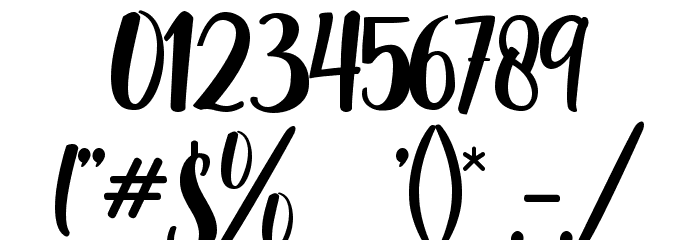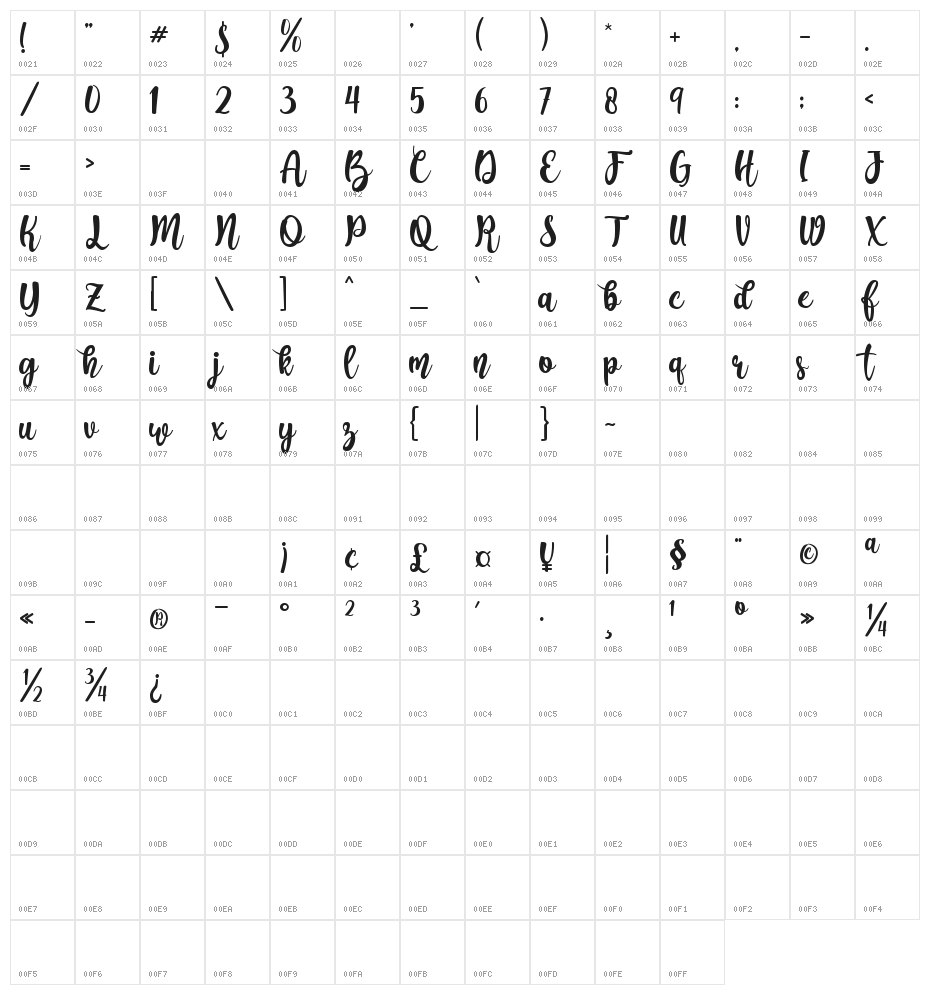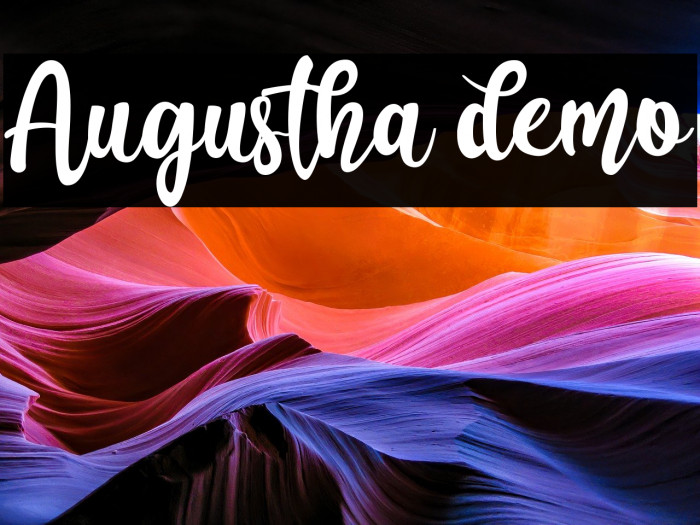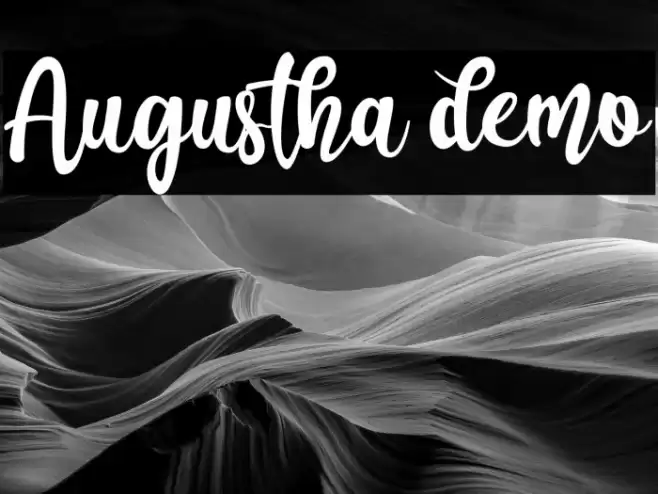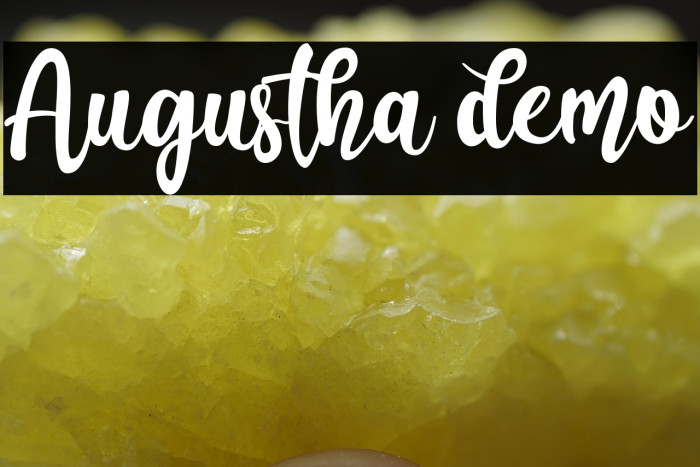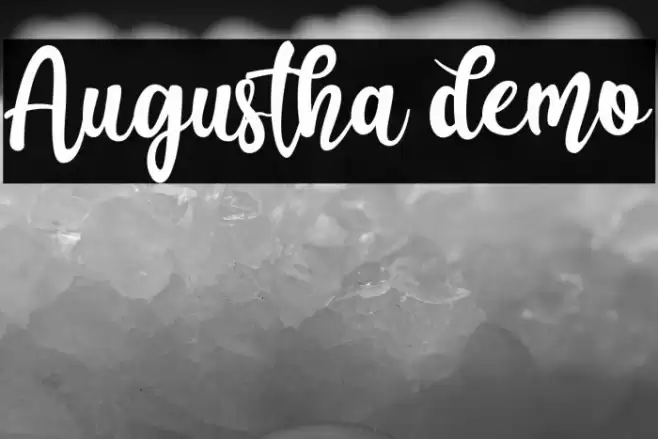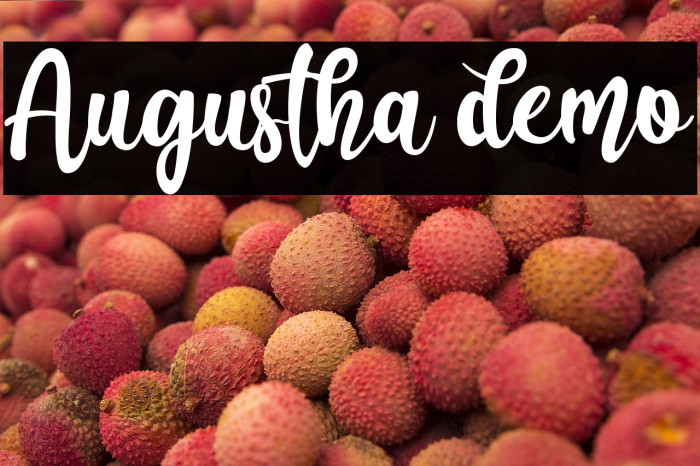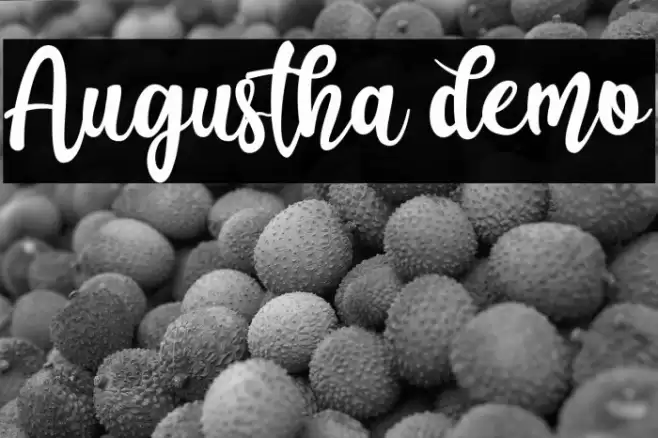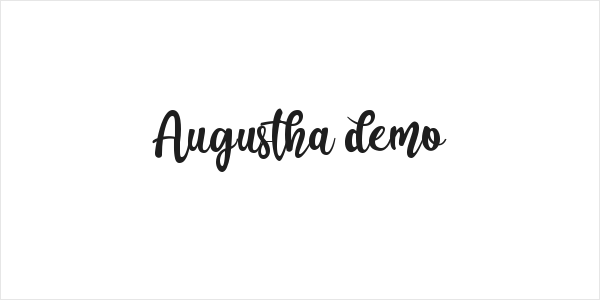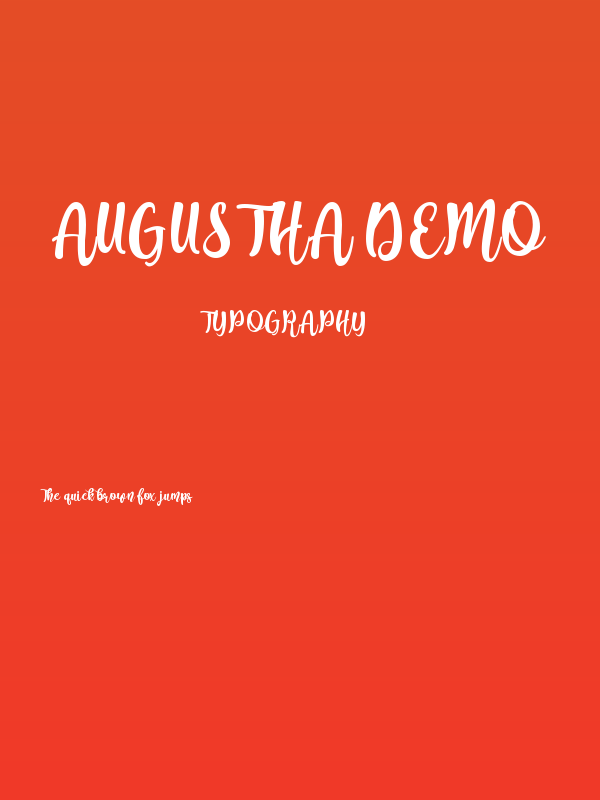
Augustha demo Font
Augustha demo Description
This font features a bold and expressive handwritten style, characterized by its fluid and dynamic strokes. The uppercase letters exhibit a playful and artistic flair, with varying stroke widths that add a sense of movement and energy. The lowercase letters maintain this lively aesthetic, with some letters featuring unique loops and swashes that enhance the font's decorative appeal. The numerals are consistent with the overall style, offering a cohesive look. Special characters are designed with the same attention to detail, ensuring versatility in various design contexts.
| Proposed Projects | Ideal for branding projects, invitations, greeting cards, and social media graphics where a personal and artistic touch is desired. |